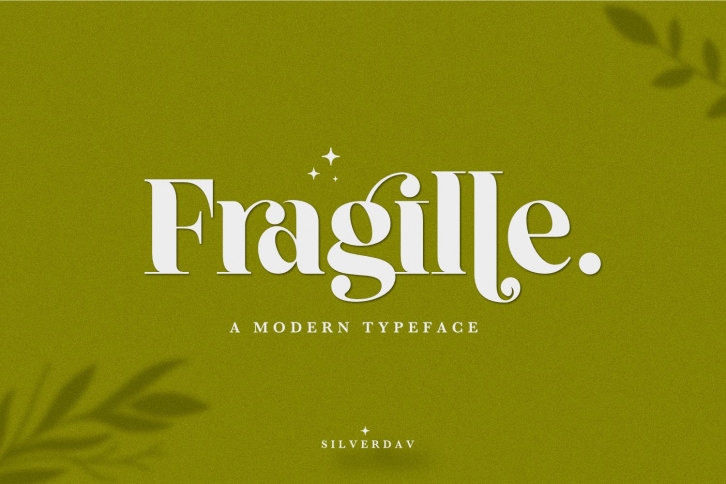
Fragille is a gorgeous font that was realeased on May 31, 2022. The font can be used in many style contexts and design environments. Perfect for invitations, magazines, websites, logos, and more! It was designed by Silverdav and the file size is 2.55 MB. Thanks for checking out this font!